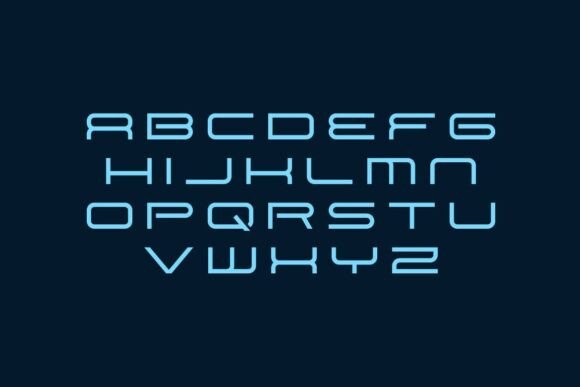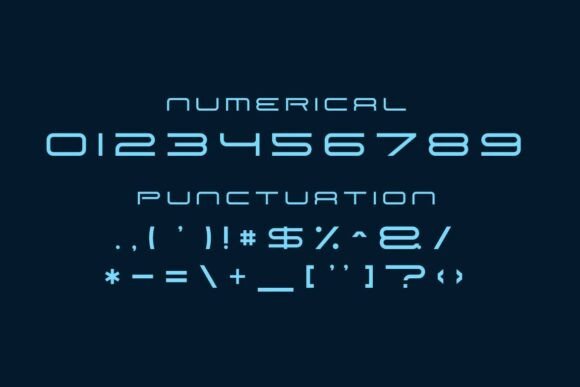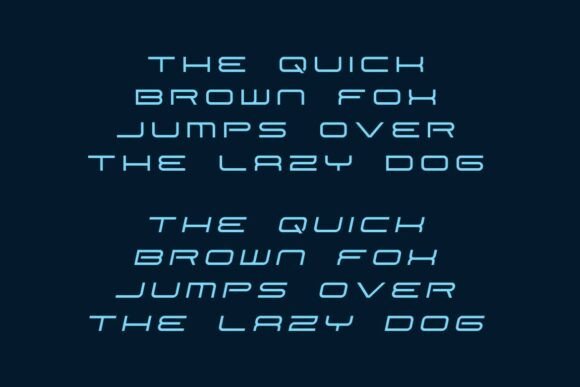
Introduction to Nebule Font
Nebule is a futuristic sans serif font built with precision, clarity, and digital elegance.
With its sleek lines, geometric structure, and clean rhythm, Nebule brings a sense of innovation and modern intelligence to every project It’s the perfect choice for tech branding, user interfaces, digital products, startup identities, and sci-fi-inspired visuals.
Key Features of Nebule Font
Why Choose Nebule Font?